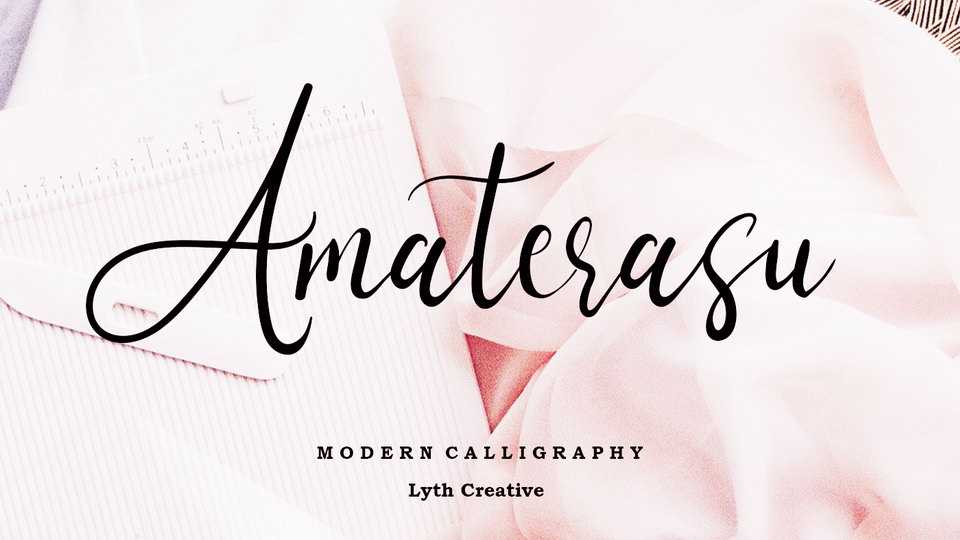
Download Amaterasu font, a beautiful modern calligraphy script with an unique style. It includes elegant movements and is perfect for adding some grace to your designs.